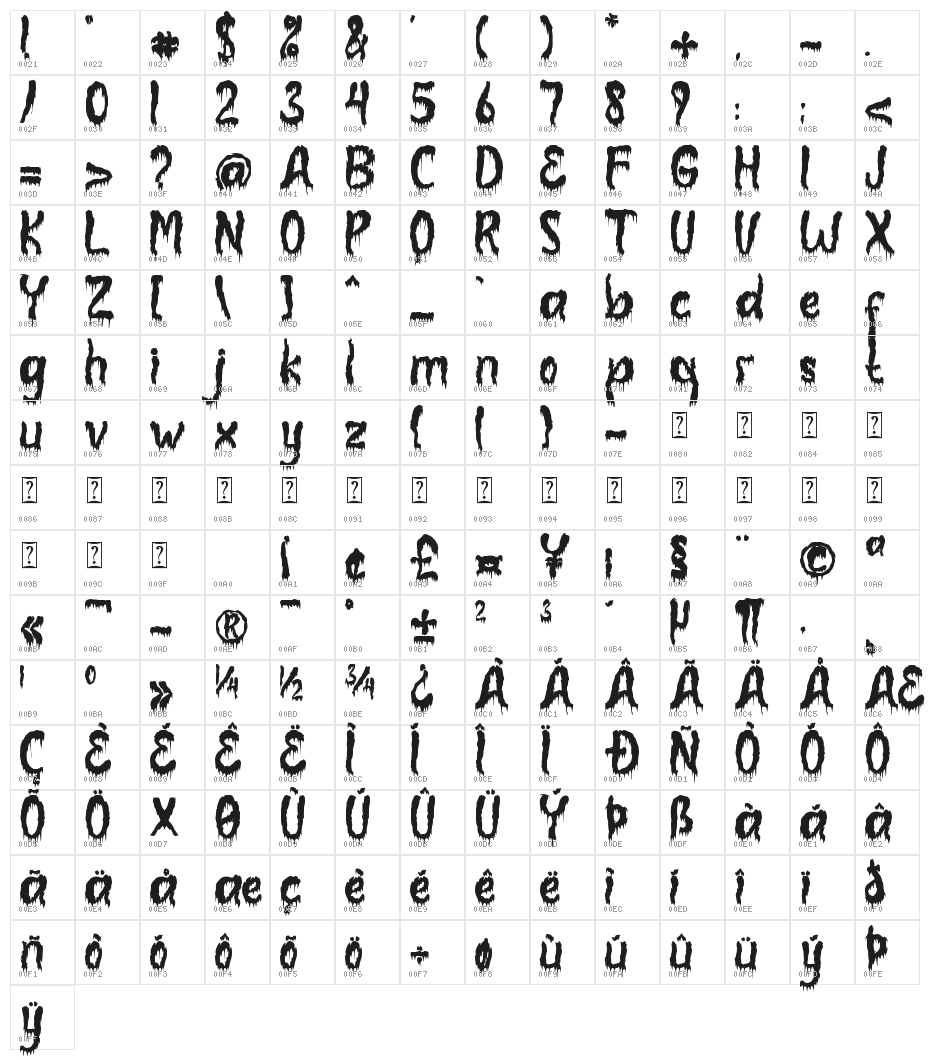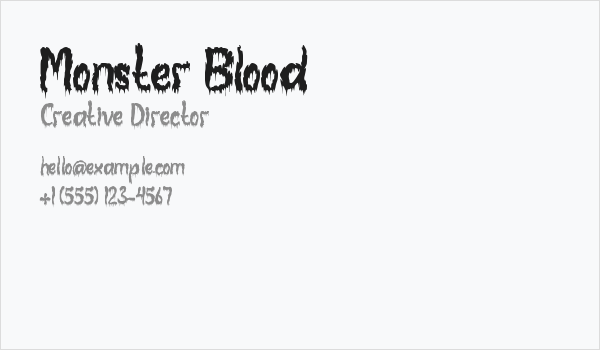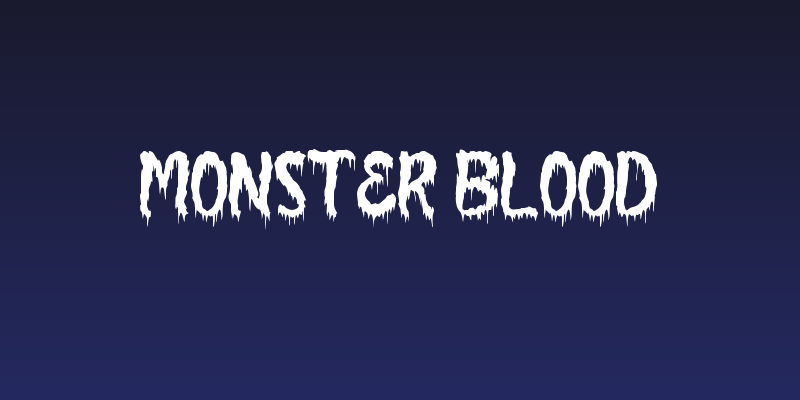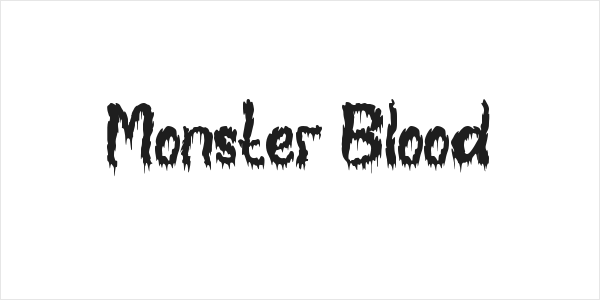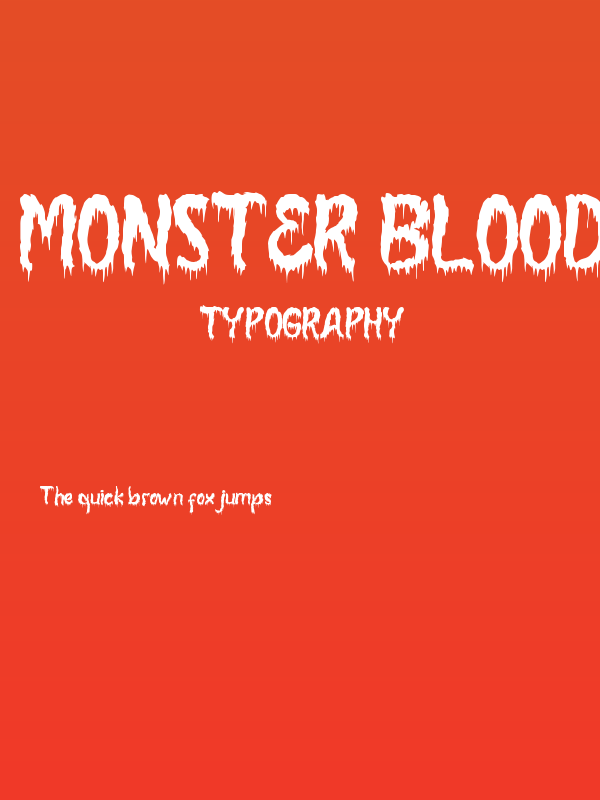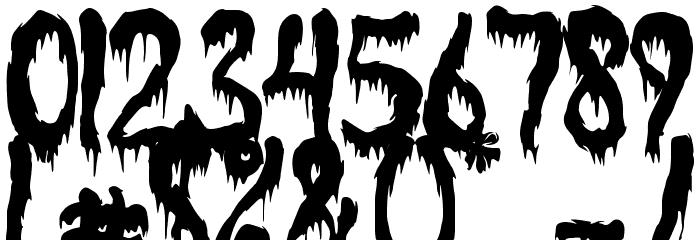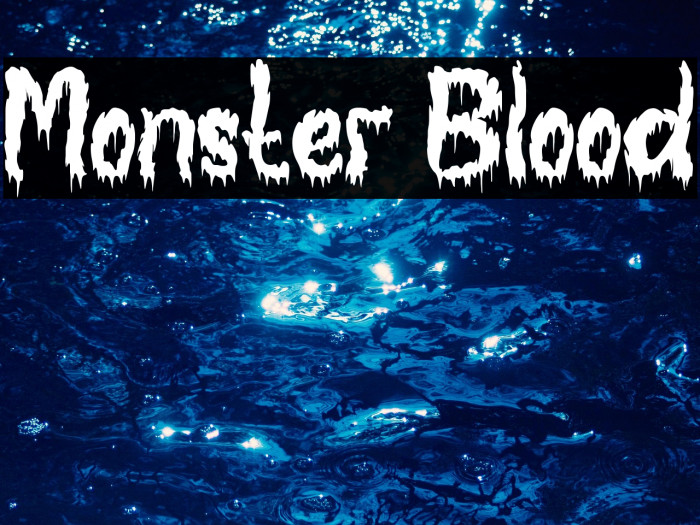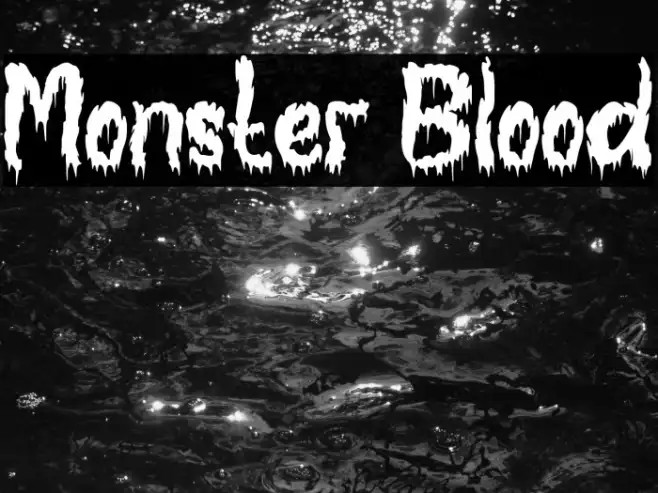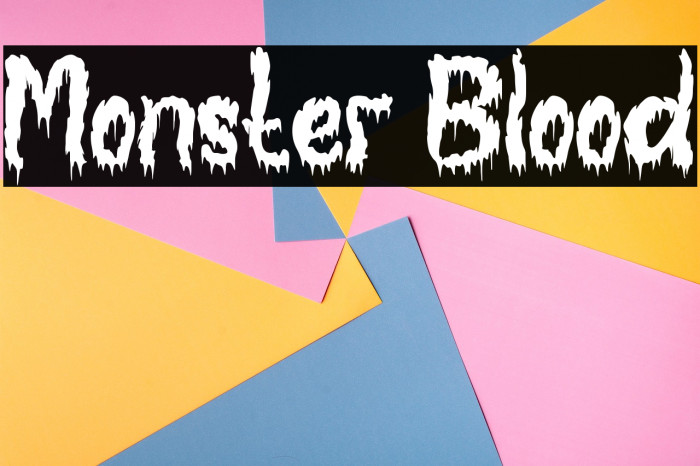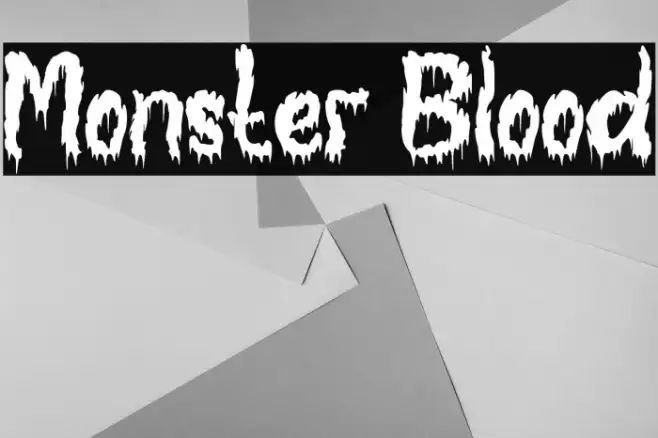
Monster Blood Font
Monster Blood Description
This font features a unique, dripping design that evokes a sense of horror and mystery. The letters appear as if they are melting or oozing, creating a dynamic and unsettling visual effect. The uppercase and lowercase letters maintain a consistent style, with each character exhibiting a jagged, irregular outline that enhances the eerie aesthetic. Numbers and special characters follow the same dripping motif, ensuring a cohesive look across all text elements. This font is perfect for projects that require a spooky or Halloween-themed appearance, offering a bold and eye-catching option for titles and headings.
| Proposed Projects | Ideal for Halloween posters, horror movie titles, themed party invitations, and spooky event flyers. |